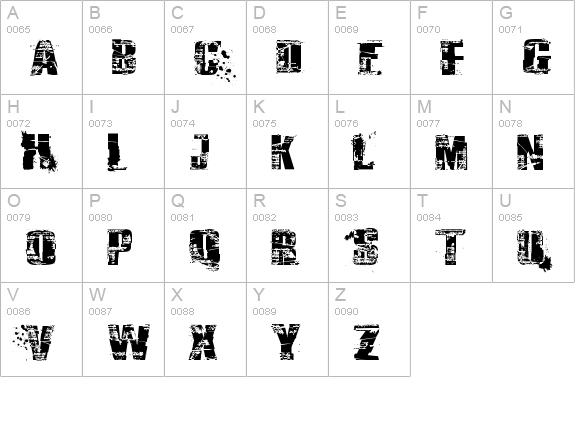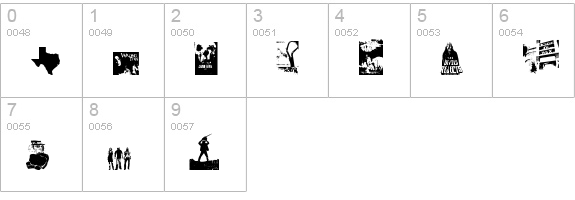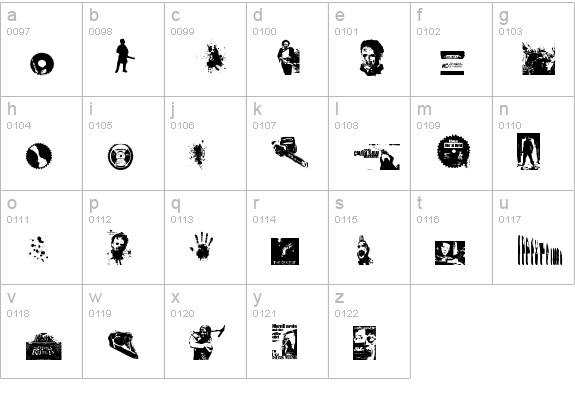
Survival Horror Font Details
Survival Horror font is a chilling and ominous typeface designed to send shivers down your spine. With its jagged edges and eerie aesthetic, this font is perfect for creating a sense of dread and unease in your projects. Whether you're working on a horror-themed design or looking to add a touch of darkness to your creations, Survival Horror font is sure to deliver a spine-tingling impact. The best part? Survival Horror font is available for free download at FontsMarket.com. So, you can easily add this hauntingly beautiful typeface to your collection without breaking the bank. Don't miss out on the opportunity to enhance your designs with the macabre charm of Survival Horror font. Download it today and unleash your creativity in the world of horror-inspired typography.